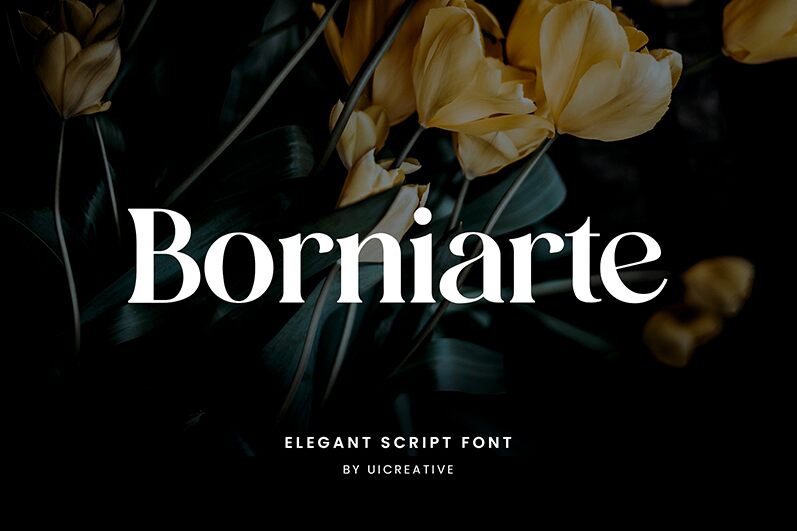
Borniarte
Borniarte, a captivating serif font designed by UI Creative, exudes a timeless elegance that captivates the eye. With its refined curves, intricate serifs, and harmonious balance, this typeface radiates a sense of sophistication and refined artistry. The seamless interplay of thick and thin strokes creates a visually striking contrast, lending depth and character to any typographic composition.
Borniarte's versatility shines through its ability to complement a wide range of design aesthetics, from high-end editorial layouts to elegant branding materials. Its distinctive personality makes it an excellent choice for projects that require a touch of sophistication, whether it's crafting impactful headlines, crafting polished body text, or adding a refined flourish to visual identities.